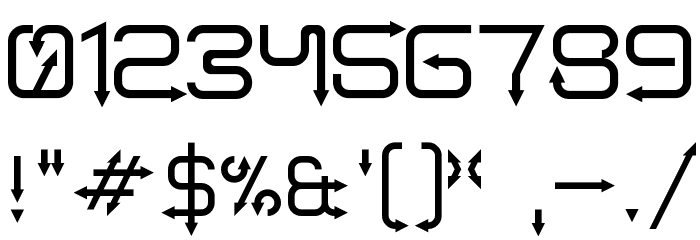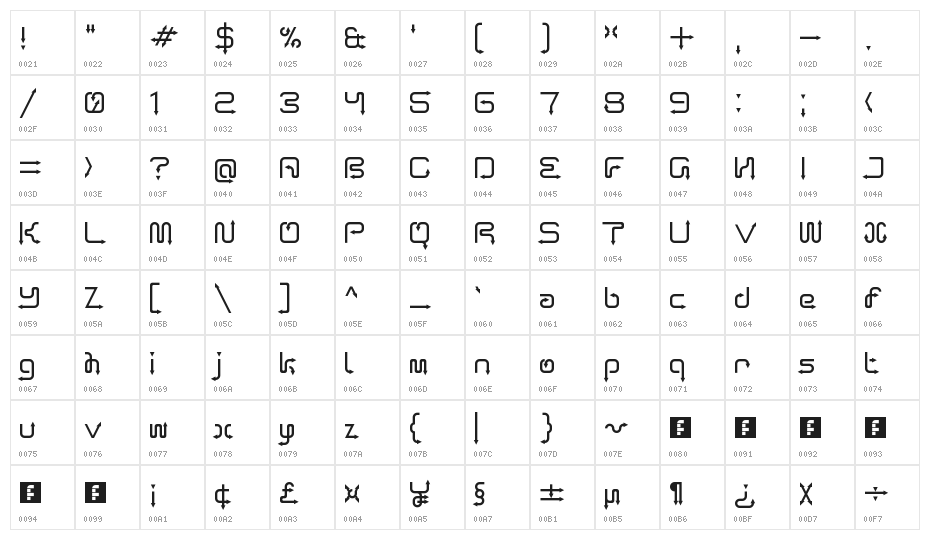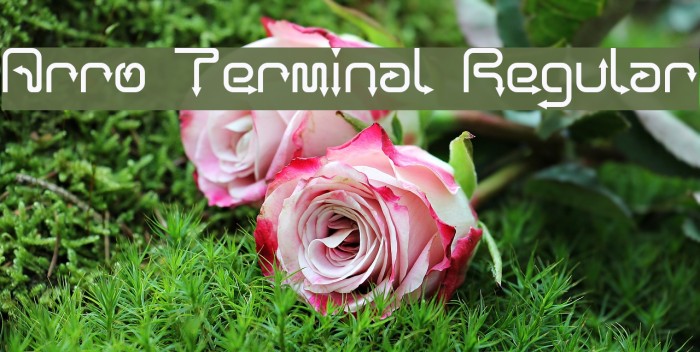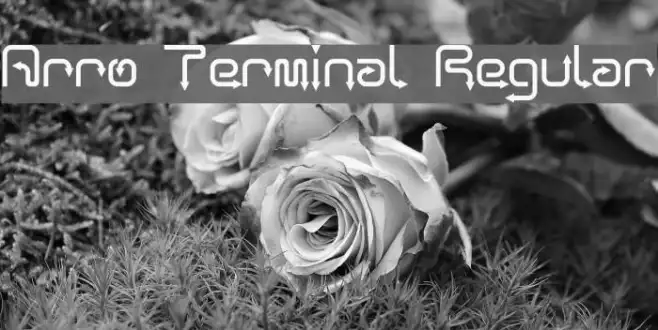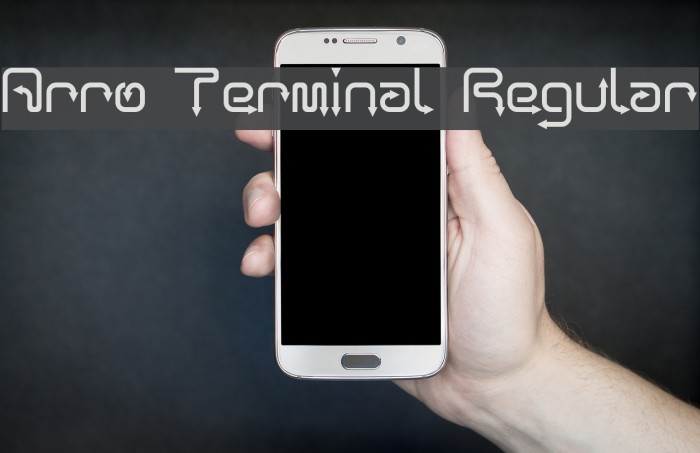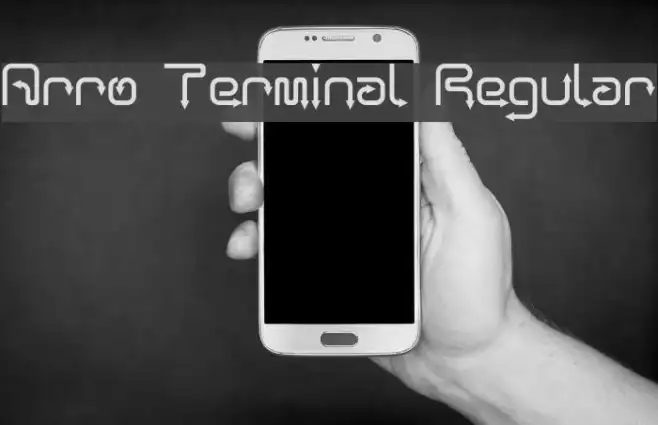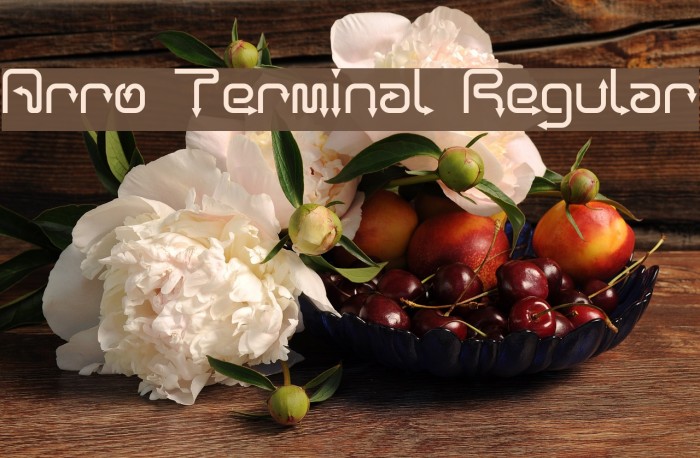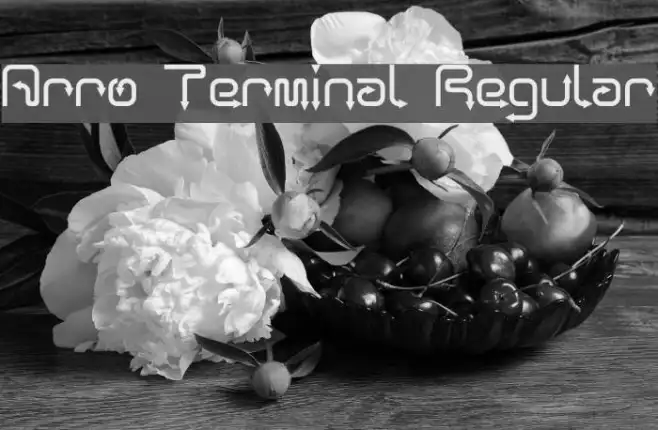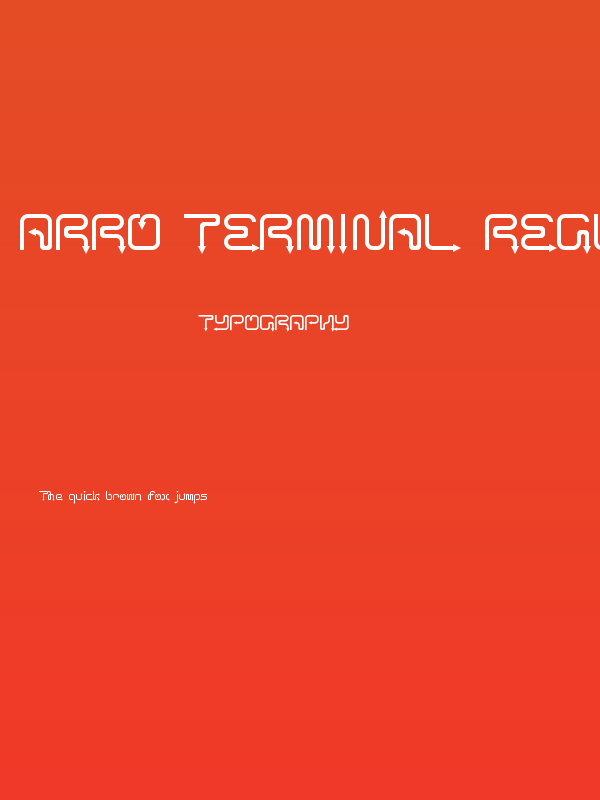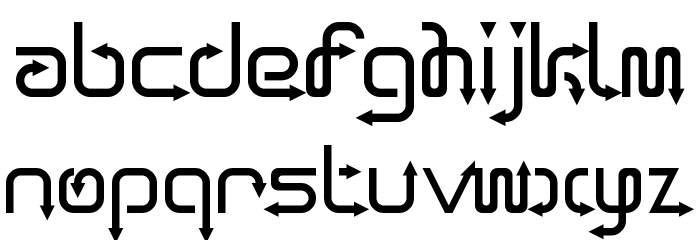
Arro Terminal Regular Font
Arro Terminal Regular Description
This font features a unique and modern design with arrow-like elements integrated into each character, creating a dynamic and directional aesthetic. The uppercase and lowercase letters, as well as numbers and special characters, all incorporate these arrow motifs, giving the font a cohesive and distinctive look. The characters are bold and geometric, with a consistent stroke width that adds to the font's uniformity. The arrows point in various directions, adding a sense of movement and energy to the text. This font is ideal for projects that require a futuristic or tech-inspired theme.
| Proposed Projects | Ideal for tech branding, futuristic posters, digital interfaces, and innovative product packaging. |